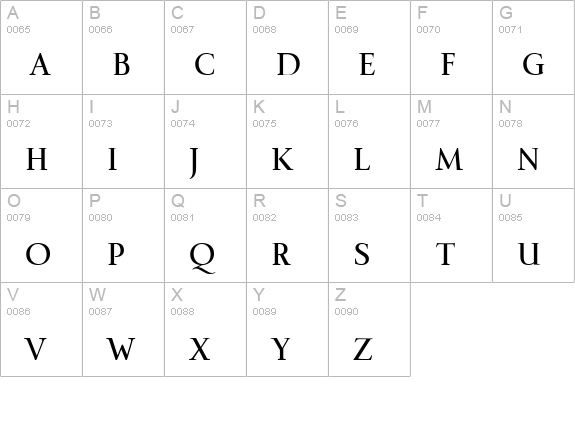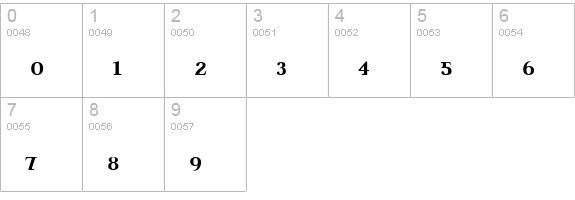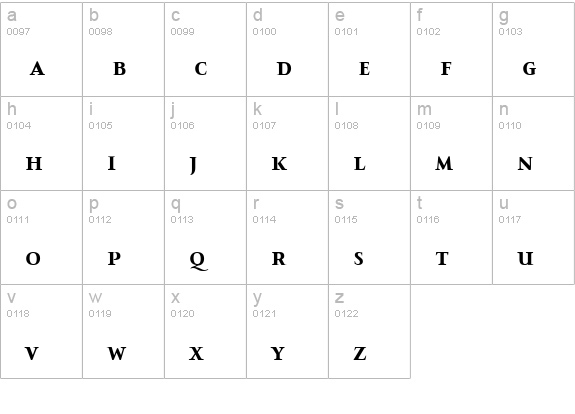
IndisposeSmallCaps-Medium Font Details
IndisposeSmallCaps-Medium is a balanced, medium-weight variant in the IndisposeSmallCaps typeface family \xE2\x80\x94 well suited to sub-headlines, navigation, and balanced editorial work.
IndisposeSmallCaps-Medium is a versatile font that effortlessly combines elegance and modernity. With its clean lines and balanced proportions, this font exudes a sense of sophistication and professionalism. It is the perfect choice for a wide range of design projects, including branding, advertising, editorial layouts, and more. What sets IndisposeSmallCaps-Medium apart is its unique small caps feature, which adds a touch of uniqueness and visual interest to any text. The small caps are beautifully designed to seamlessly blend with the rest of the characters, creating a harmonious and cohesive look. This font is incredibly easy to read, making it suitable for both digital and print media. It is designed with legibility in mind, ensuring that your message is conveyed clearly and effectively to your audience. Whether used for headlines, subheadings, or body text, IndisposeSmallCaps-Medium guarantees a pleasant reading experience. The best part is that IndisposeSmallCaps-Medium is available for free download at FontsMarket.com. This means that you can enjoy this stunning font without any cost or restrictions. Simply visit FontsMarket.com, find IndisposeSmallCaps-Medium, and start incorporating it into your design projects today. Don't miss out on this incredible opportunity to enhance your designs with the elegance and versatility of IndisposeSmallCaps-Medium. Download it for free at FontsMarket.com and unlock a world of endless creative possibilities.